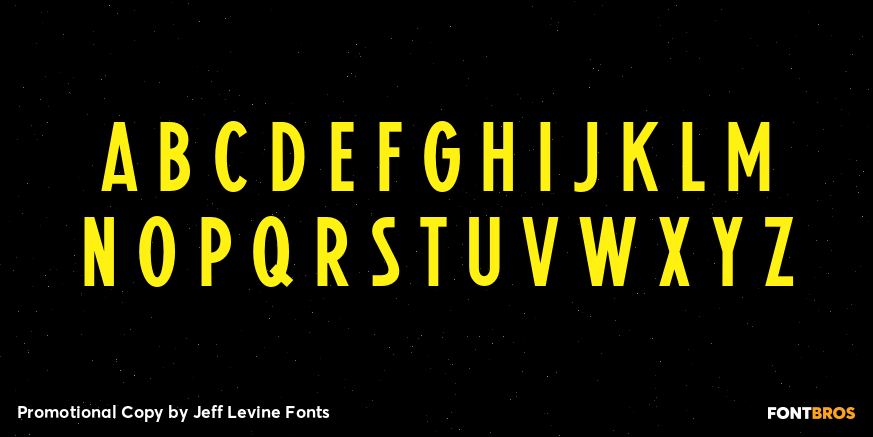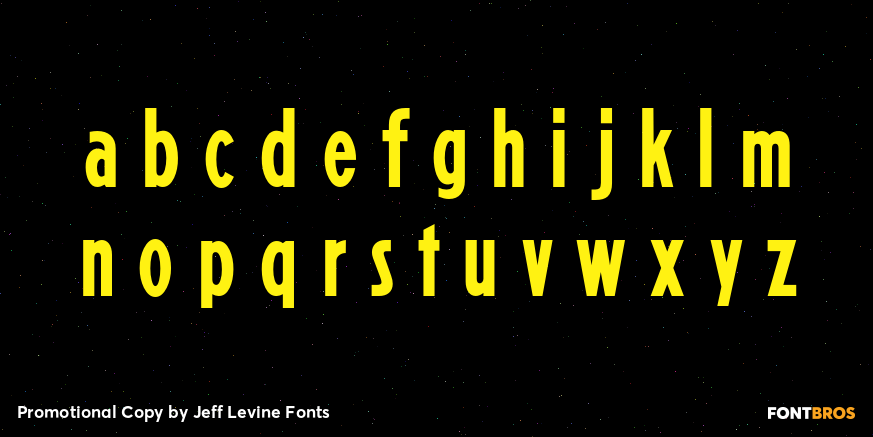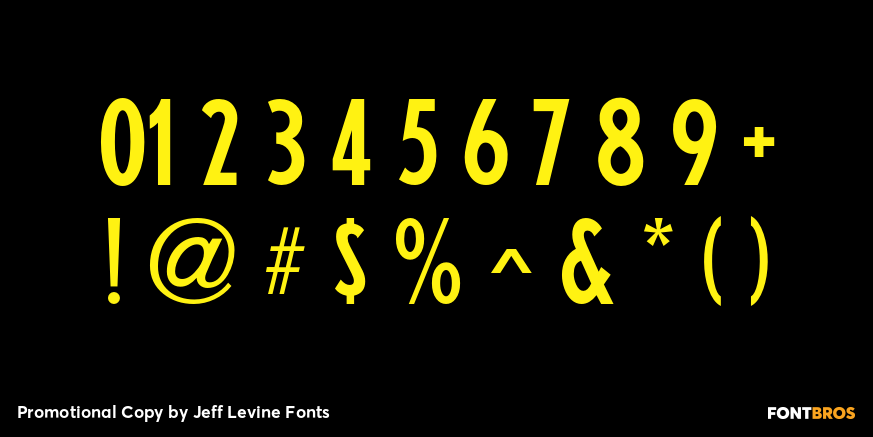
Promotional Copy
The typeface which inspired Promotional Copy JNL can be found on hundreds of 45 rpm records from the 50s through the 80s, as well as in headlines from articles found in one of the music industry's leading publications throughout their older issues – it was a favorite and a workhorse.
Now's your chance to create a facsimile of the record label you always wanted to have with your garage band… or at the very least, utilize this font for some clean and crisp text or headline projects.
Promotional Copy JNL Regular
Promotional Copy JNL Oblique